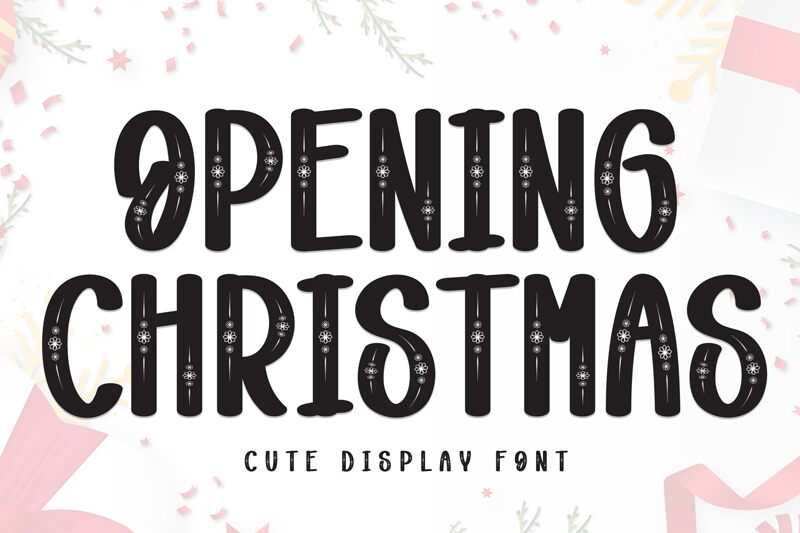
Opening Christmas
Opening Christmas font is a free decorative font from Scratchones that brings the holiday cheer and spirit in an outstanding creative manner. The attractive display of the characters evokes nostalgia and warmth in a fun festive way, with accents scattered all over. With a condensed width, it fits the aesthetic of 60s retro Xmas ads.
Be it under-the-tree gift cards or actual wallpaper and wrapping paper wrapping material designs you have in mind, this is where to start your next creative project. Moreover, this typeface is perfect for Christmas shopping mall giveaways with billboards, signages, invitations, greeting cards for adults or kids alike benefitting from its humorous vibe too!